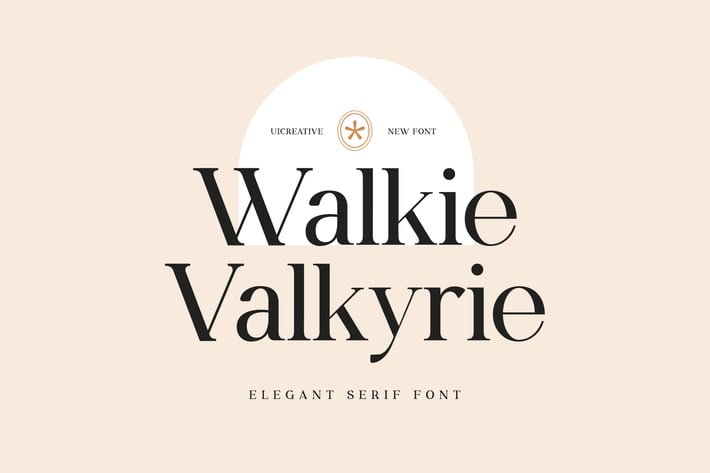
Walkie Valkyrie Serif Font Family
Introducing our new product the name is Walkie Valkyrie Serif Font Family comes with 9 different weights. Modern Serif font that feels beautiful classy, elegant, and modern. This font is perfectly suited for a wide variety of projects, such as signature, stationery, logo, wedding, typography quotes, magazine or book cover, website header, clothing, branding, packaging design, and more. Also for fashion-related branding or editorial design and displays both masculine and feminine qualities.
Font Weight:
Normal
Italic
Bold
Bold Italic
Extra Bold
Extra Bold Italic
Semi Bold
Thin
Thin Italic